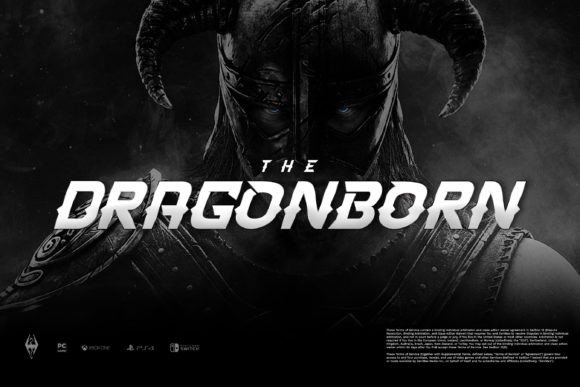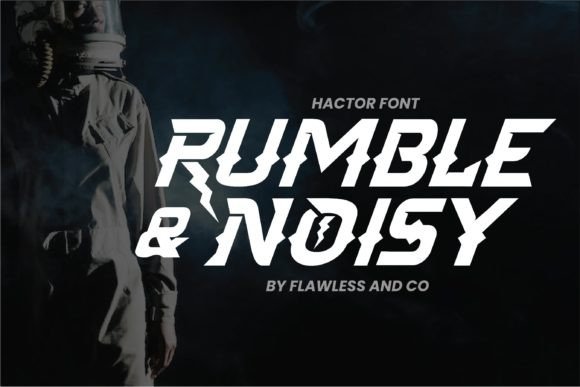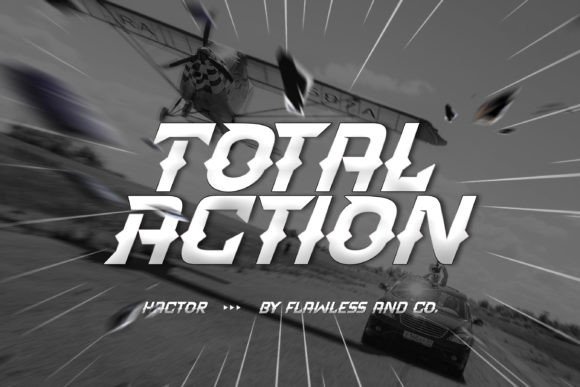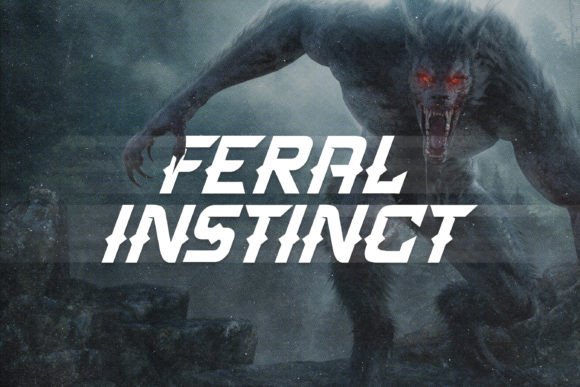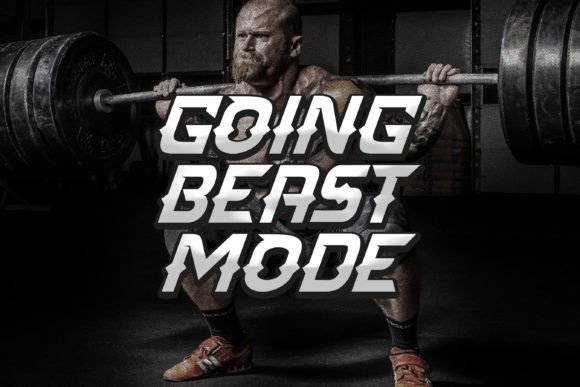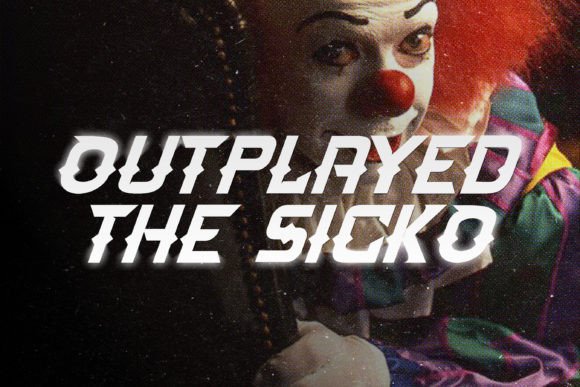
Introducing Hactor Font: The Ultimate Display Typeface for Sports Designs
In the world of sports, typography plays a crucial role in conveying the energy, intensity, and competitiveness of athletic events. As a designer or crafter, you understand the importance of selecting the right font to make your sports-related projects stand out. That’s where Hactor Font comes in – a bold and impactful display typeface specifically designed to make a statement.
The Inspiration Behind Hactor Font
Hactor Font is crafted to embody the spirit of sports, capturing the essence of athletic competition and the passion of sports enthusiasts. The design team behind Hactor drew inspiration from the world of sports, creating a font that exudes power, strength, and competitiveness. With its athletic-inspired design, Hactor Font is perfect for sports team logos, jersey numbers, event signage, and any design that requires a strong typographic presence.
Key Features of Hactor Font
Hactor Font boasts several key features that make it an ideal choice for sports-related designs:
- Bold and Robust Letterforms: Hactor’s letterforms are designed to demand attention, making it perfect for headlines, titles, and any design that requires a strong typographic presence.
- Athletic-Inspired Design: The font’s athletic-inspired design captures the energy and intensity of athletic events, making it perfect for sports team logos, jersey numbers, and event signage.
- High Versatility: Hactor Font is suitable for a wide range of applications, from sports team branding to event promotions, and even apparel designs.
- Easy to Read: Despite its bold design, Hactor Font remains easy to read, even at smaller sizes, making it perfect for use on various mediums, including jerseys, billboards, and digital screens.
Use Cases for Hactor Font
Hactor Font is an incredibly versatile typeface that can be used in a variety of sports-related designs, including:
- Sports Team Logos: Create a bold and impactful logo for your sports team with Hactor Font.
- Jersey Numbers: Use Hactor Font to create eye-catching jersey numbers that demand attention.
- Event Signage: Make a statement with Hactor Font on event signage, including posters, billboards, and digital screens.
- Apparel Designs: Use Hactor Font on sports apparel, such as t-shirts, hoodies, and hats, to create a bold and athletic look.
Why Choose Hactor Font?
In a world where typography plays a crucial role in design, Hactor Font stands out as a bold and impactful display typeface that’s specifically crafted for sports-related designs. Here are just a few reasons why you should choose Hactor Font for your next project:
- Unique Design: Hactor Font boasts a unique design that’s unlike any other font on the market.
- High Quality: Hactor Font is crafted with high-quality design principles, ensuring that it looks great on any medium.
- Versatile: Hactor Font is suitable for a wide range of applications, making it a great addition to any designer’s toolkit.
In conclusion, Hactor Font is a bold and impactful display typeface that’s specifically designed to make a statement in sports-related designs. With its strong letterforms, athletic-inspired design, and high versatility, Hactor Font is perfect for sports team logos, jersey numbers, event signage, and any design that requires a strong typographic presence. Whether you’re a designer or crafter, Hactor Font is a great addition to your toolkit, allowing you to create stunning sports-related designs that demand attention.